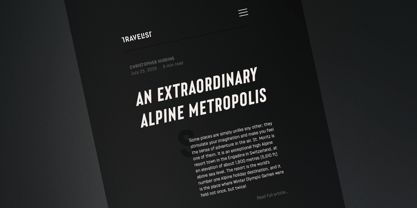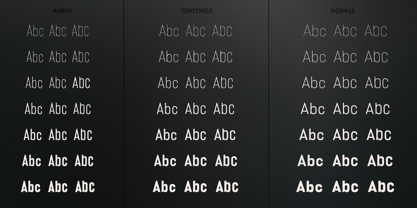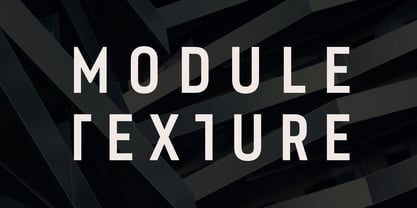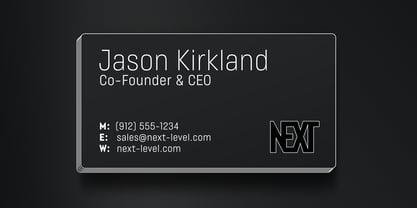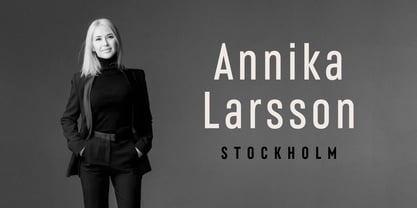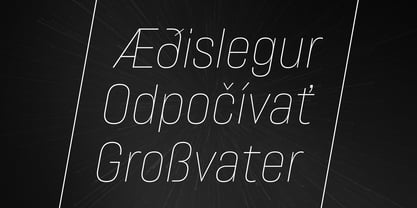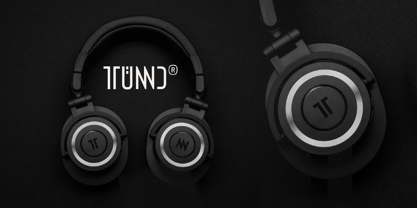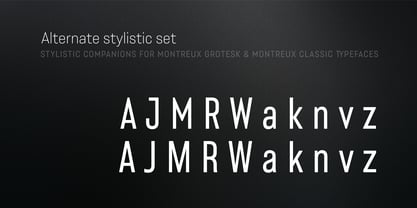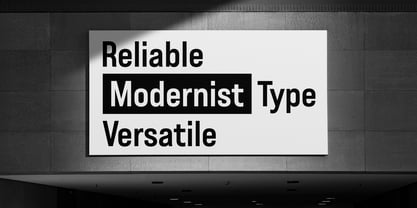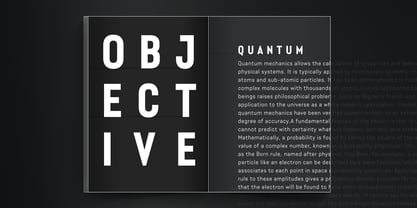
Lütschine
The Lütschine Font Family was designed by Roch Modrzejewski and published by ROHH. Lütschine contains 128 styles and family package options. More about this family
Lütschine™ is a highly adaptable industrial sans serif font family crafted for maximum versatility and visual impact. Built on a foundation of modern, elegant, minimalistic letterforms, it offers exceptional control over typographic mood and rhythm with multiple widths, weights, and unique x-height variations. The robust, carefully spaced lowercase alphabet transforms the family from a commanding headline typeface into an efficient, space-saving tool for paragraph text. Lütschine is the ideal choice for dynamic branding, logo design, complex editorial layouts, and digital environments, empowering designers with infinite scalability and pristine legibility across diverse applications. Key Features: - Ultra-versatile sans serif - 126 styles (7 weights, 3 widths, 3 x-heights + italics) - 2 variable fonts (3-axis: weight, width, x-height) - Robust OpenType features including uppercase ligatures and alternates - over 750 glyphs per style - Extended language support